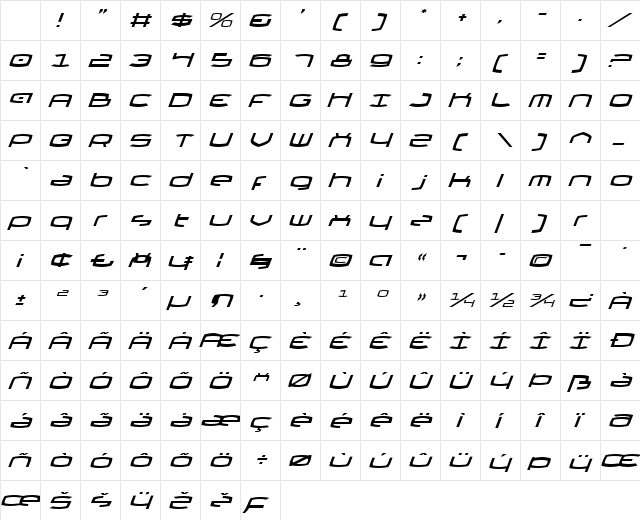
Complete Thundergod II Italic glyph index. Displaying only characters natively supported by Thundergod II Italic font.
Thundergod II is a composed and adaptable typeface that performs quietly and consistently across a wide range of design contexts. The slanted form adds forward momentum and visual energy.